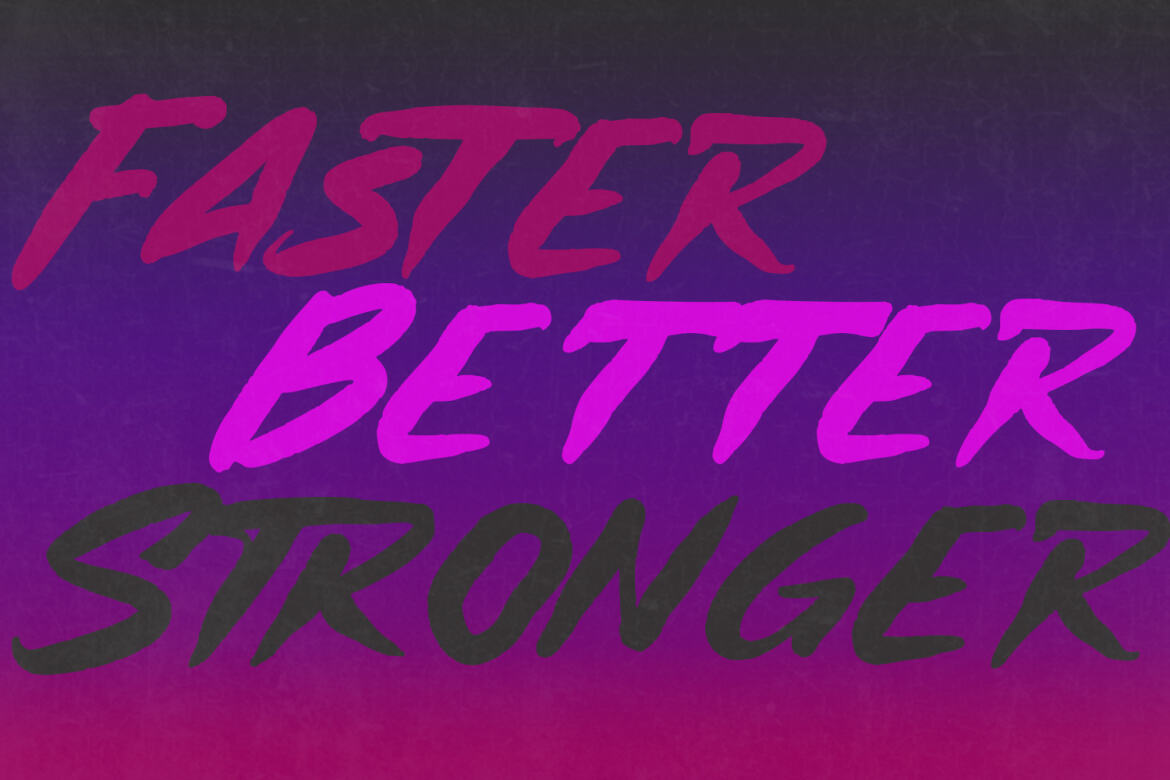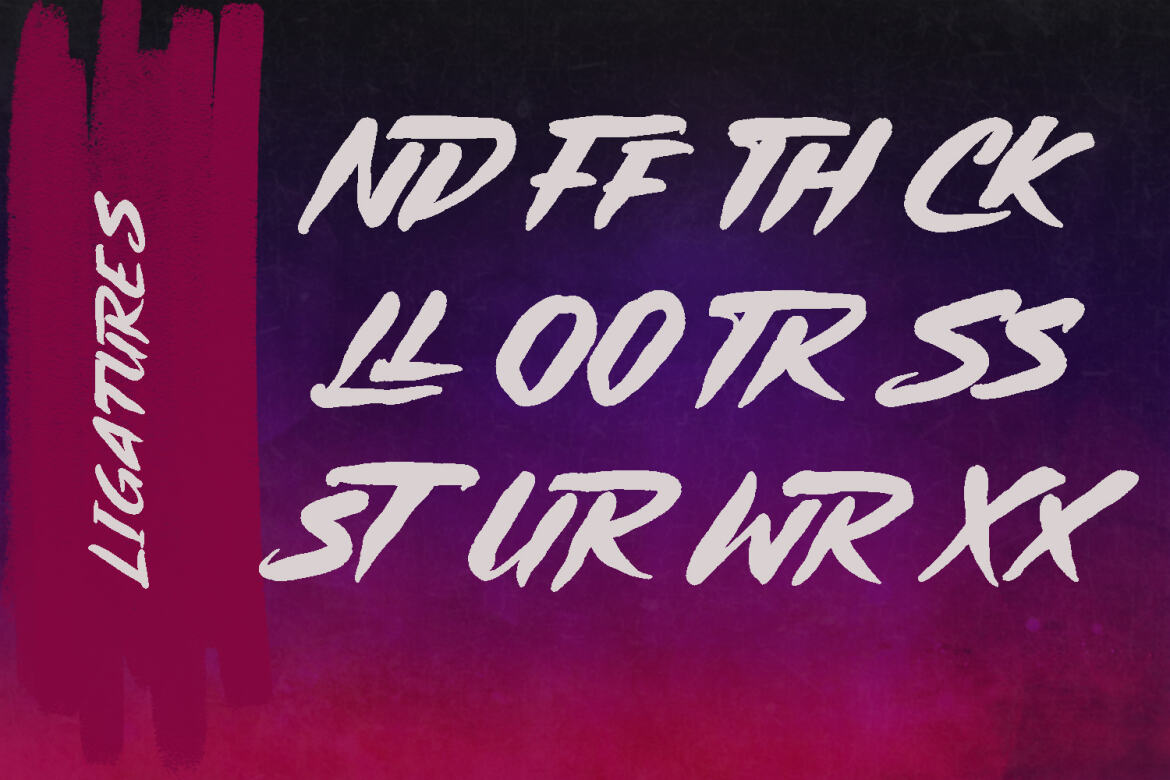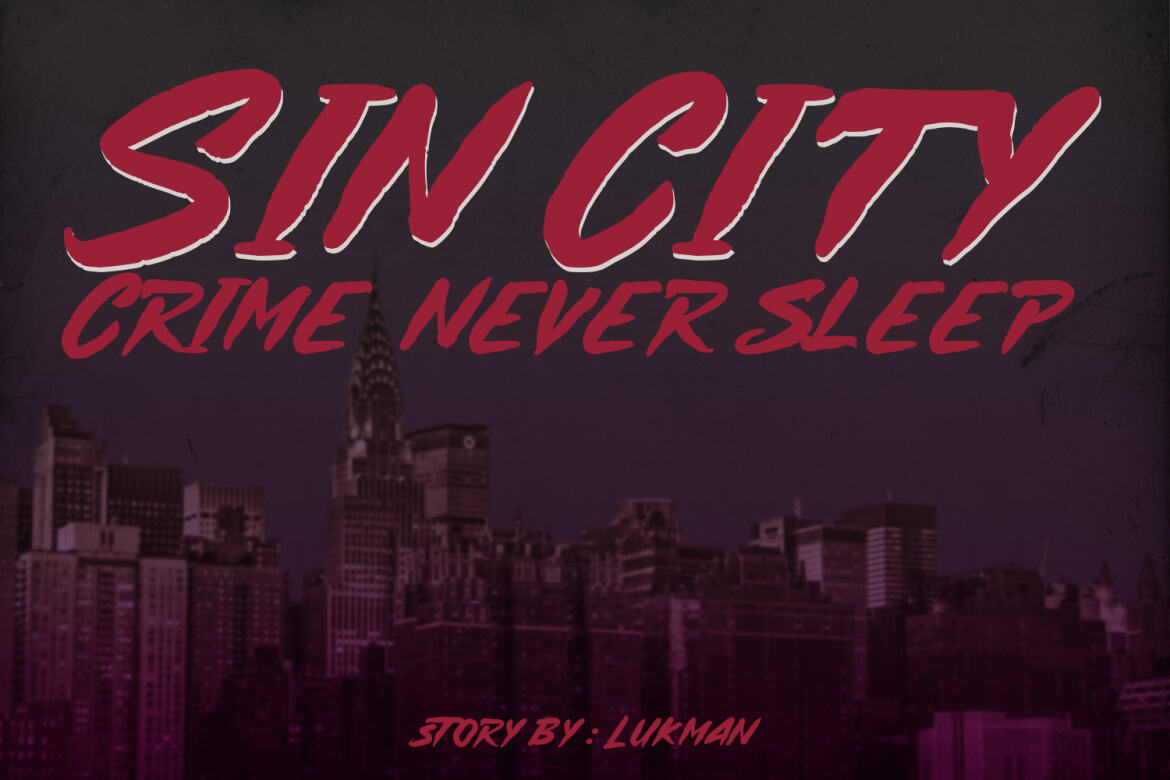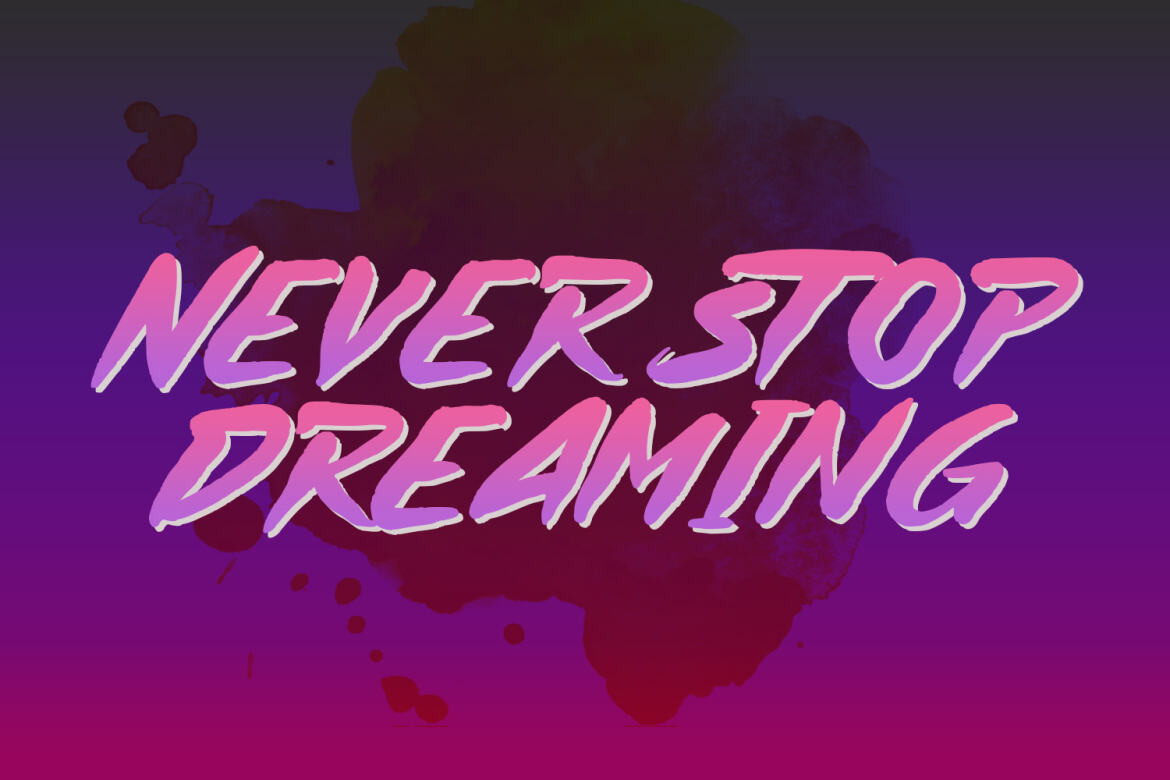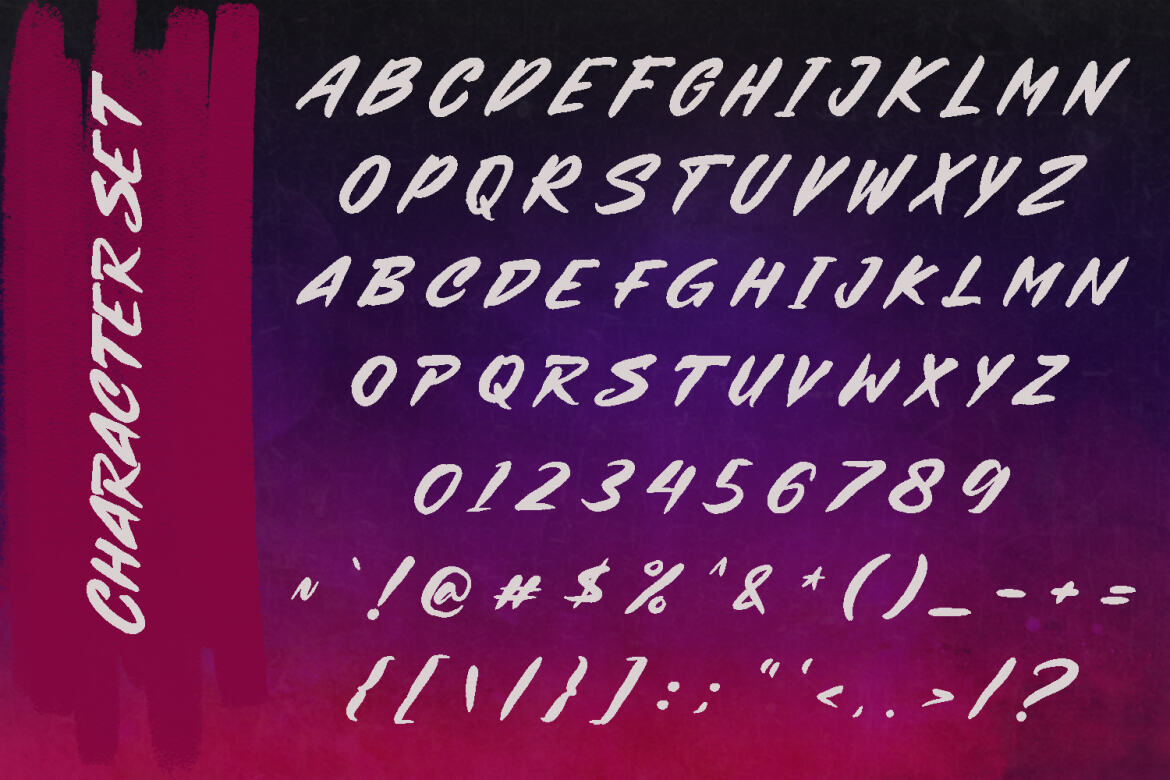
Burndrives FREE Brush Font
Burndrives
Burndrives is a slanted handwritten display brush font. With bold rough brush stroke, fun character with a bit of ligatures. To give you an extra creative work. Burndrives font support multilingual more than 100+ language. This font is good for logo design, Social media, Movie Titles, Books Titles, a short text even a long text letter and good for your secondary text font with sans or serif. Make a stunning work with Burndrives font.